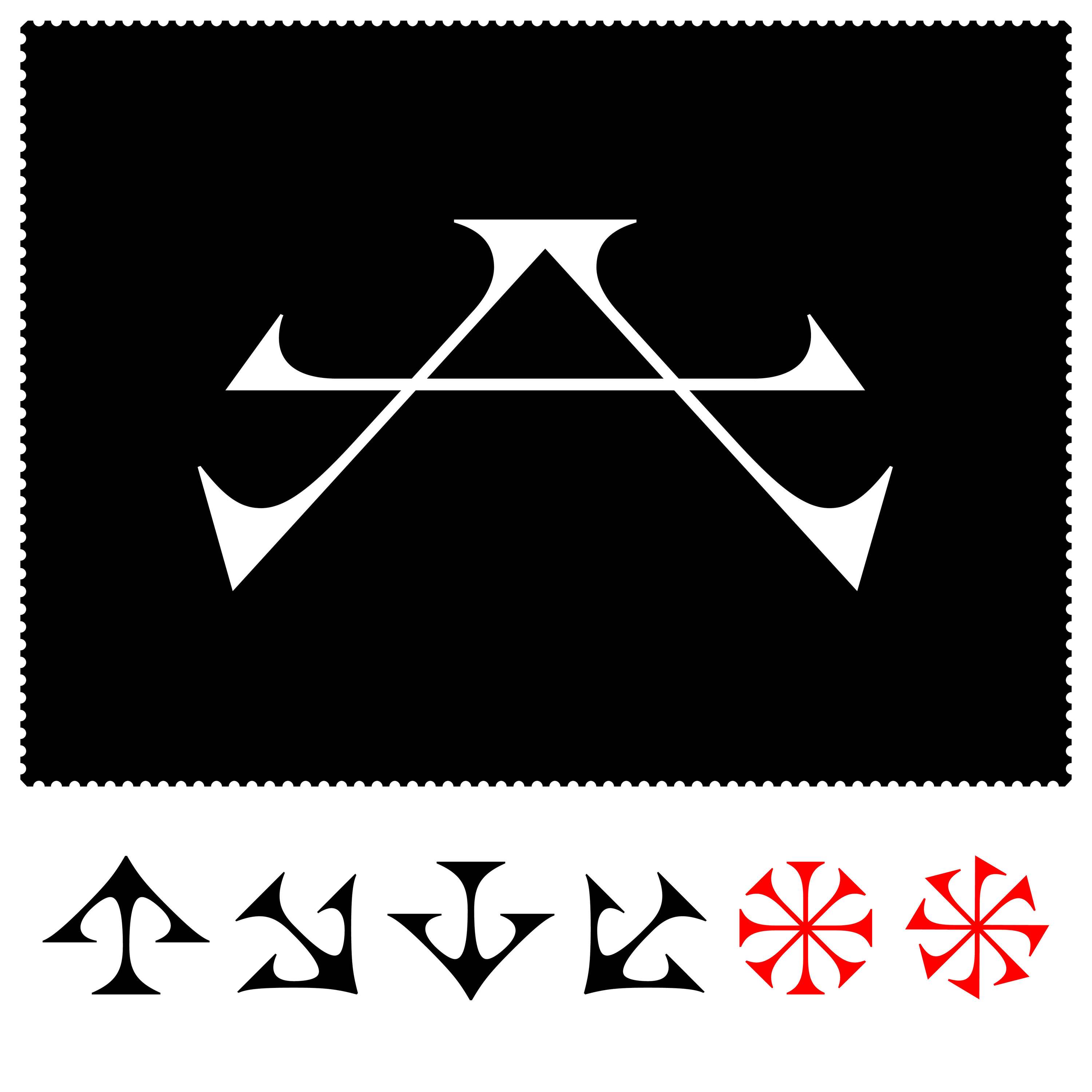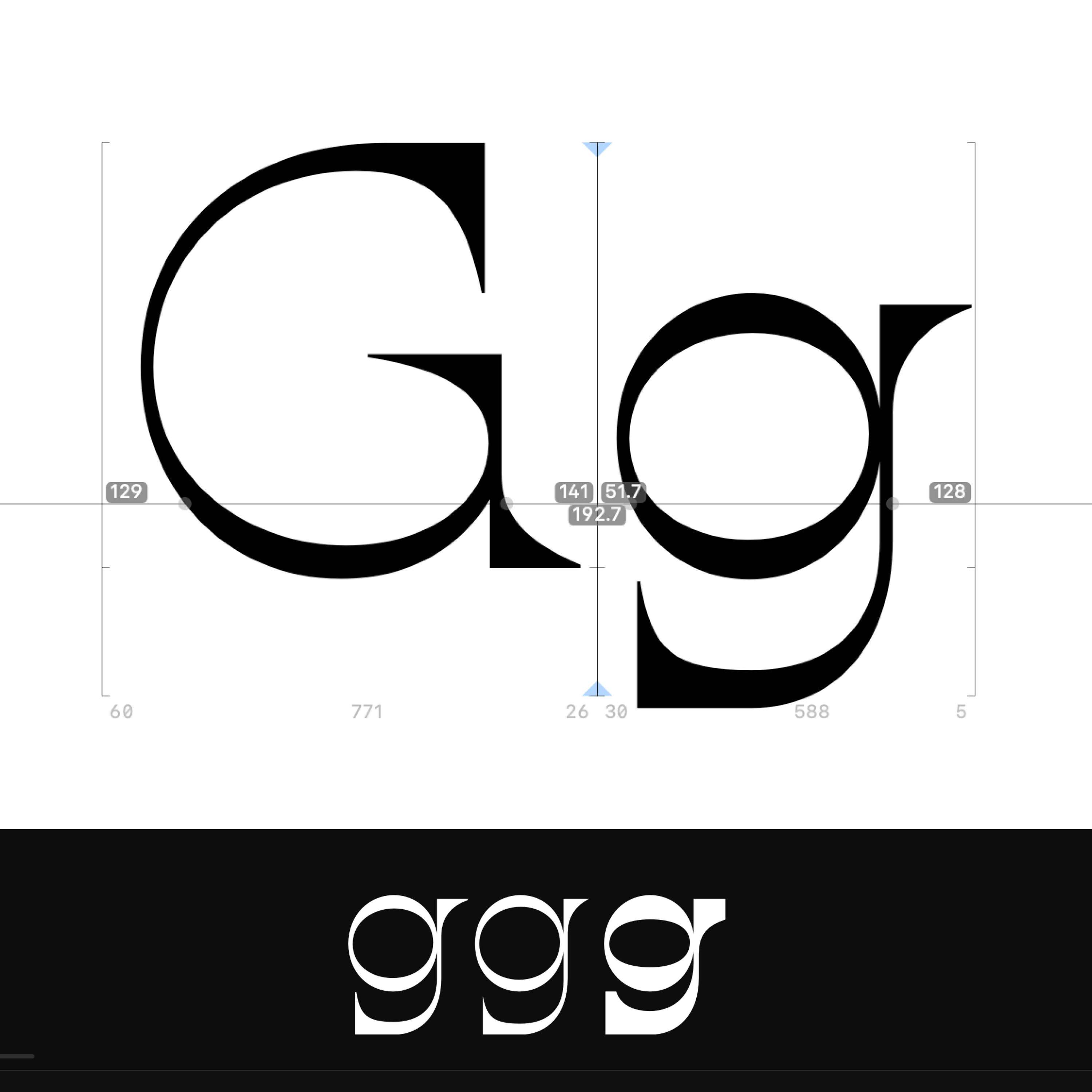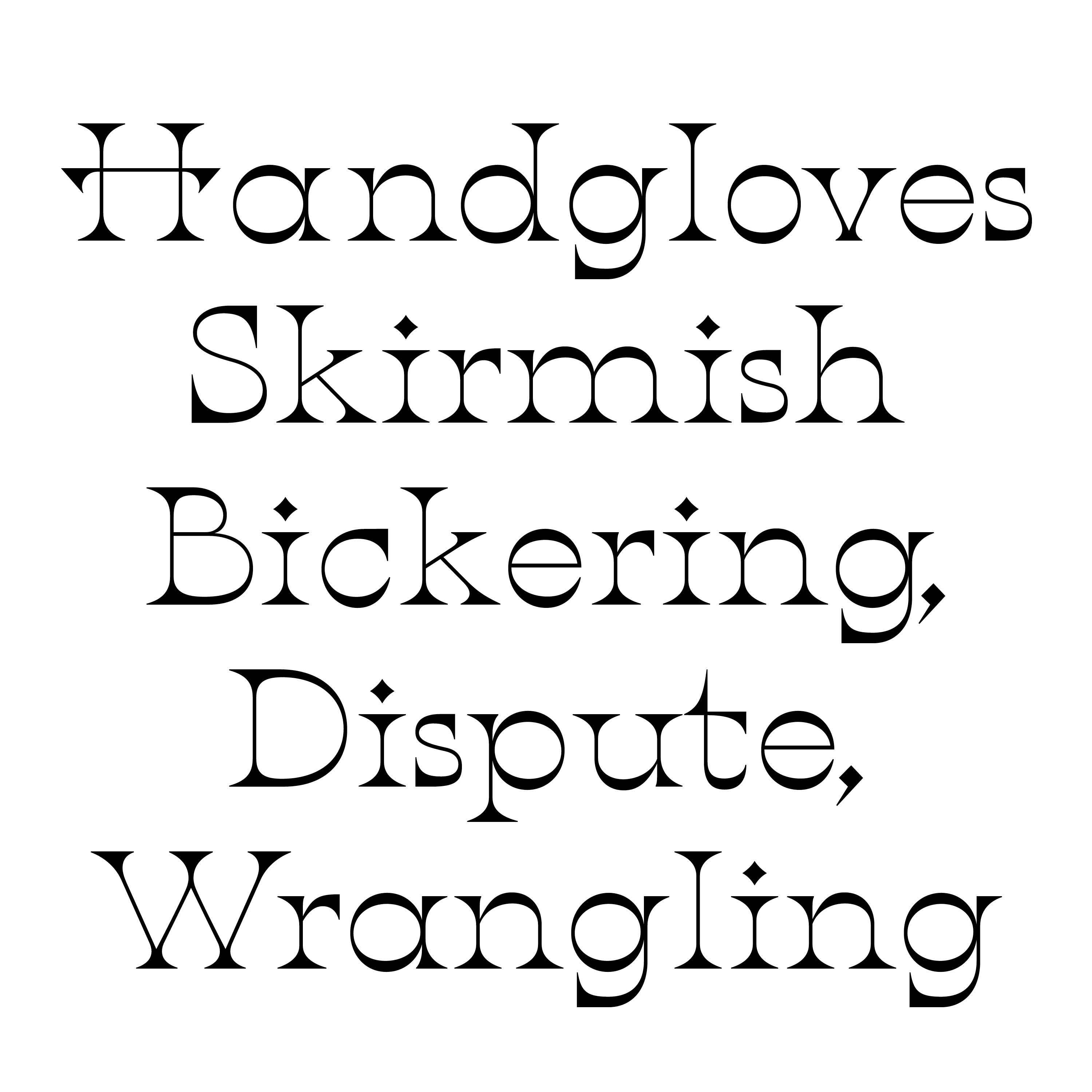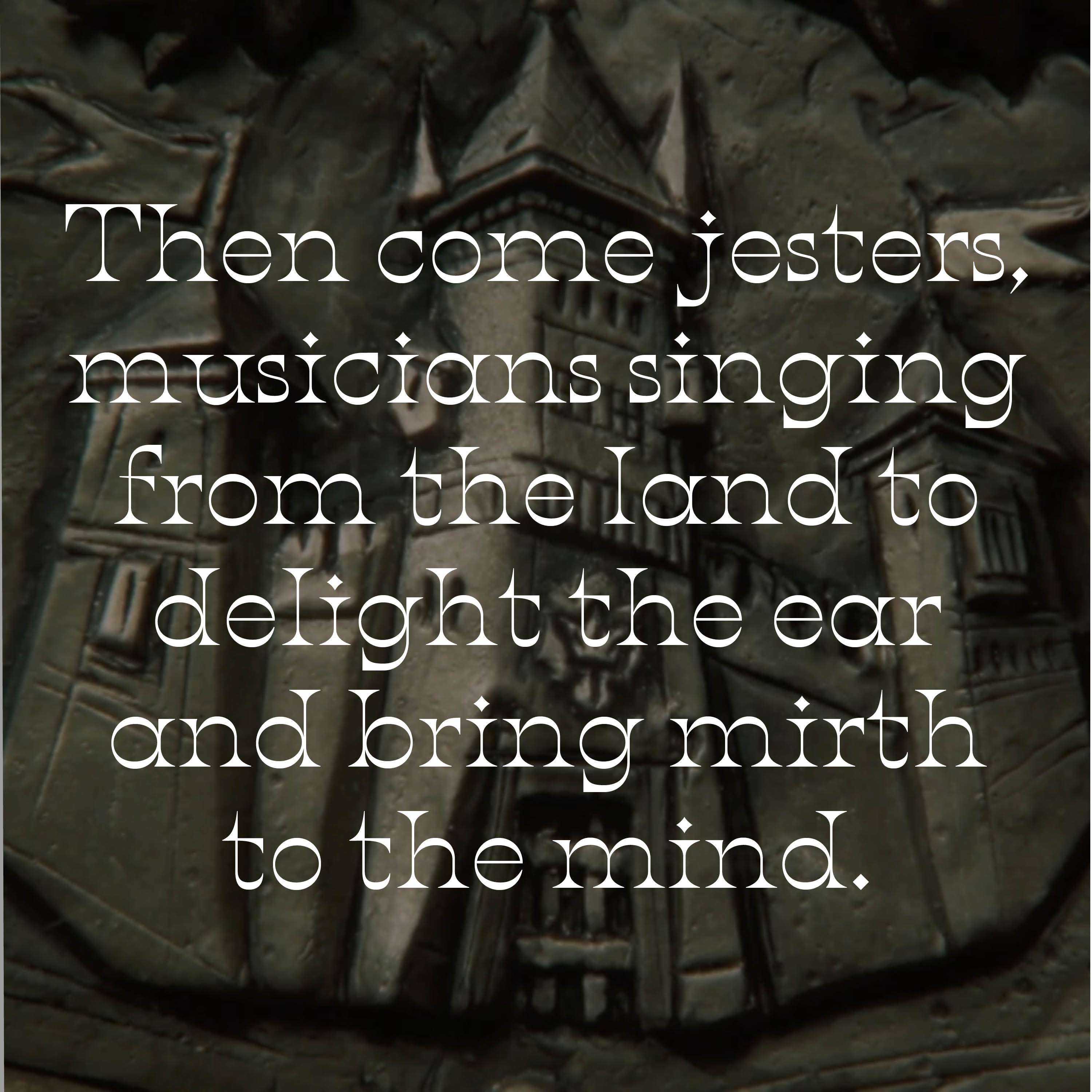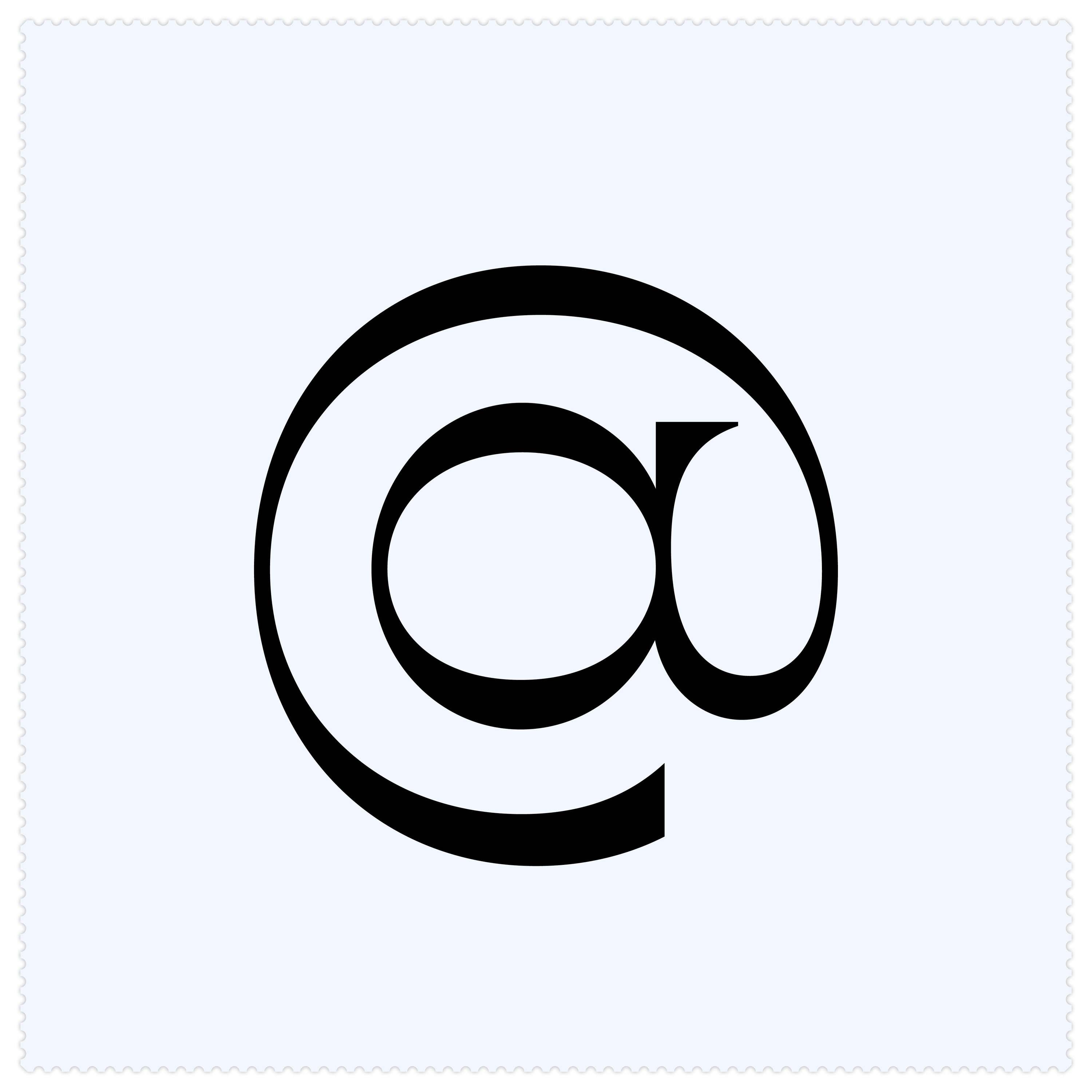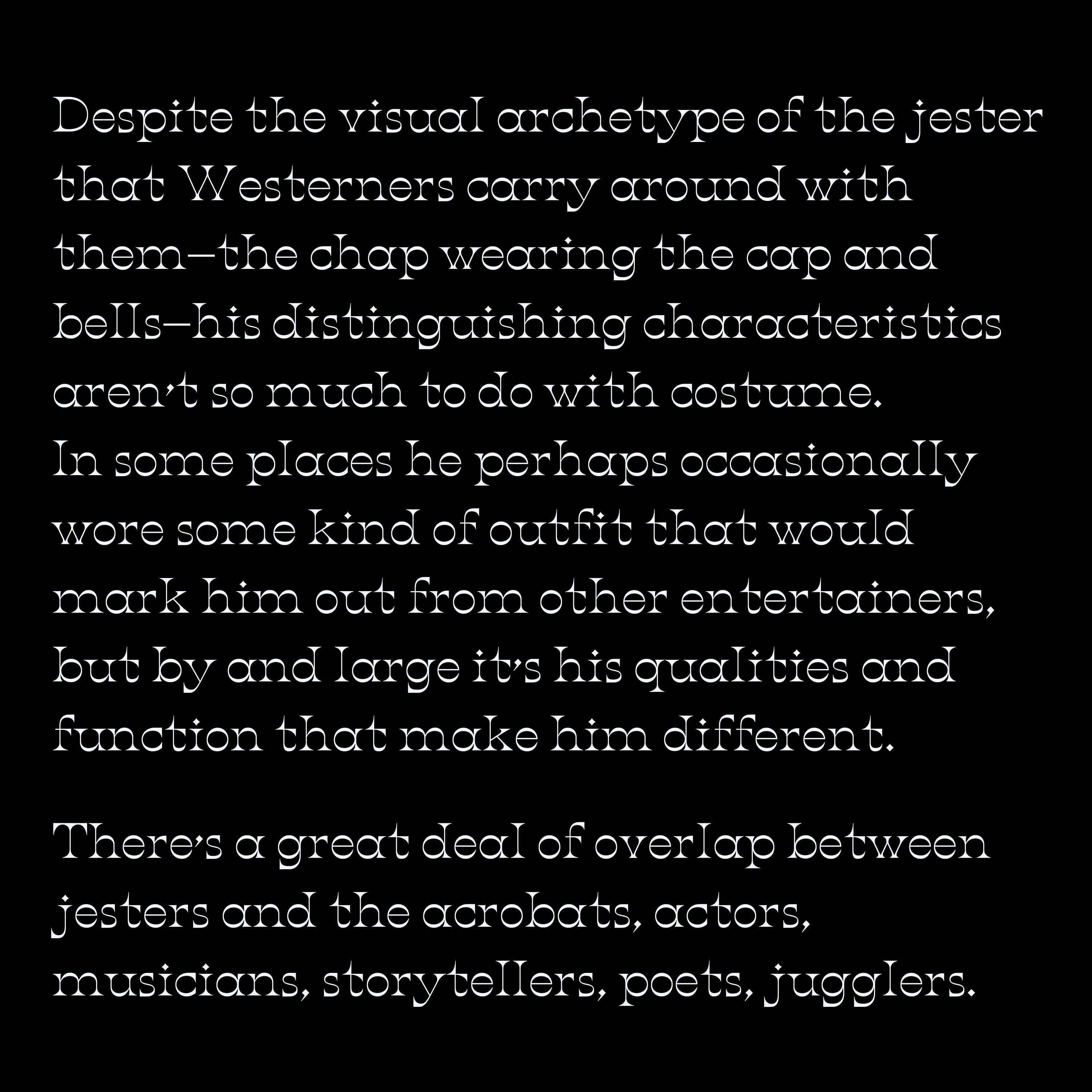
Grumio Typeface
Grumio stems from the harlequinade that is the legacy of soviet-era animation in Eastern Europe, blending medieval charm and folksy elements. A whimsical typographic interplay evokes a vivid scene of sharp-cut serifs, echoing towering spires and geometric base shapes that parallel cobblestone foundations. Grumio’s character is built on a reverse contrast, reminiscent of a jester—a figure who, despite being perceived as a fool, often carries profound influence in courtly settings. Pointed serifs serve as a visual metaphor, taking lead in front of their company: serving as messengers, regaling their cohorts with songs and stories to elevate spirits.